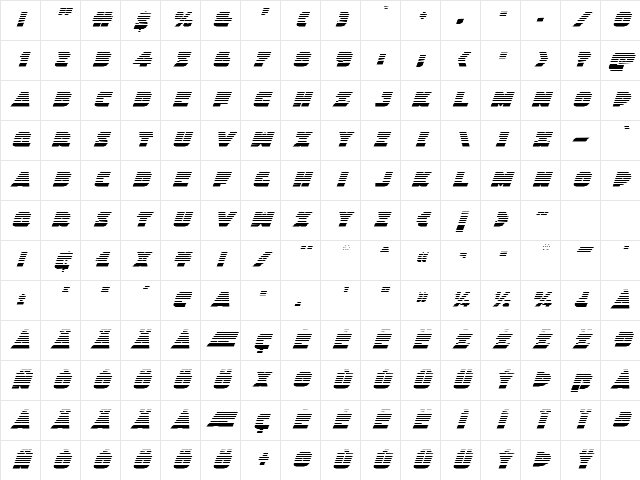
Jedi Special Forces Gradient Italic Italic
Design Context for Jedi Special Forces Gradient Italic
Jedi Special Forces Gradient Italic brings high-energy athletic personality to the page - its confident, muscular forms are built for impact. The slanted form adds forward momentum and visual energy.
Pro Tip: Use Jedi Special Forces Gradient Italic in all-caps headlines where its athletic energy can fully express itself. Pair with a solid, simple sans for supporting text.